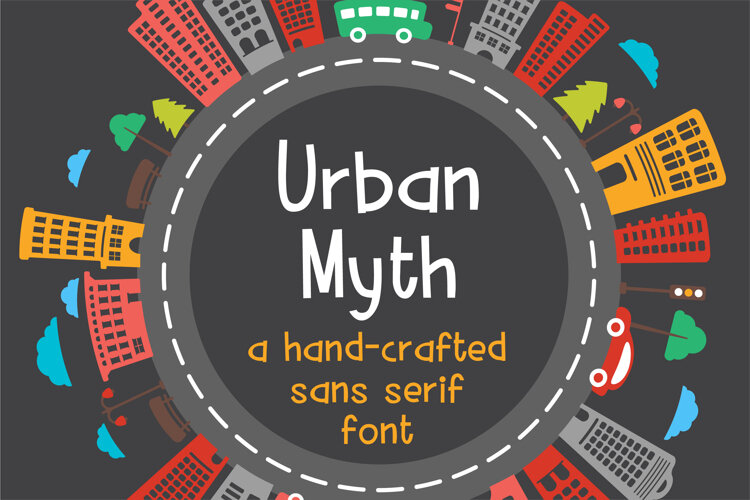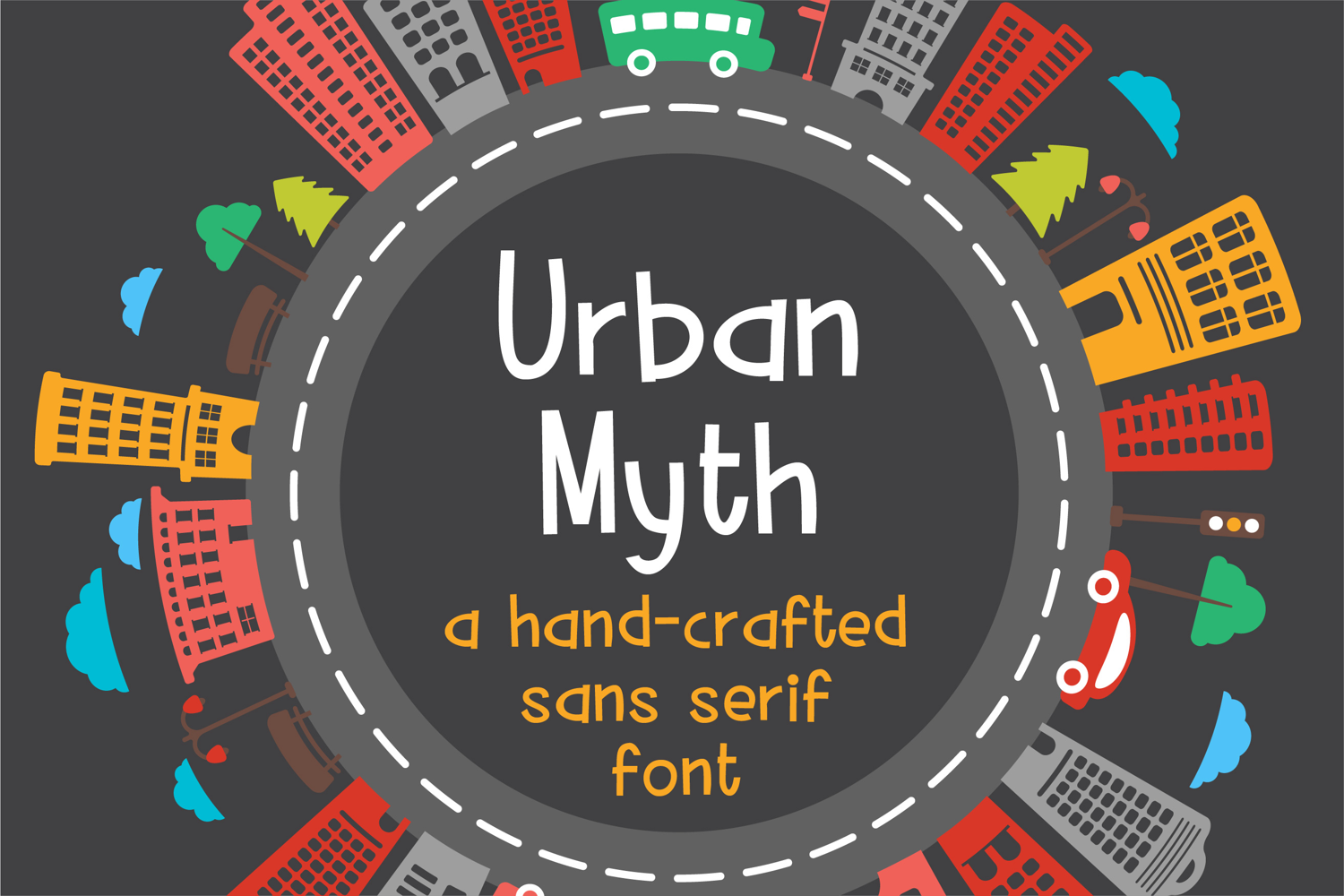
Urban Myth Hand-Drawn Sans Serif Font
Urban Myth is a clean, hand-drawn sans serif font with a casual, modern personality. Its thin, slightly quirky letterforms are perfect for logos, branding, greeting cards, invitations, social media graphics, classroom projects and handmade crafts. Use this versatile handwritten font whenever you want a friendly, contemporary look that still feels unique.